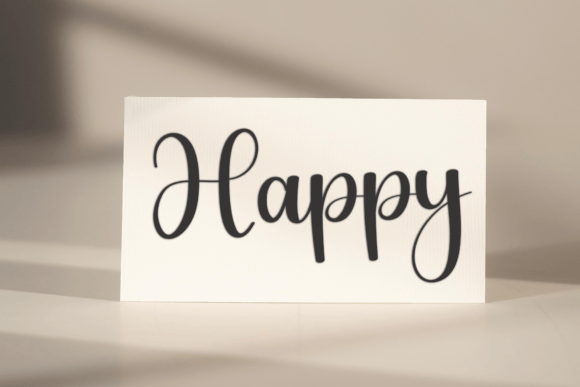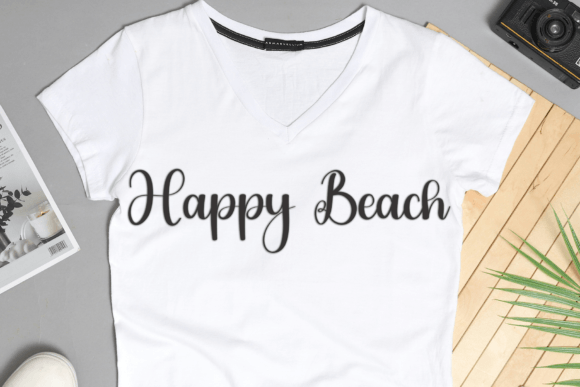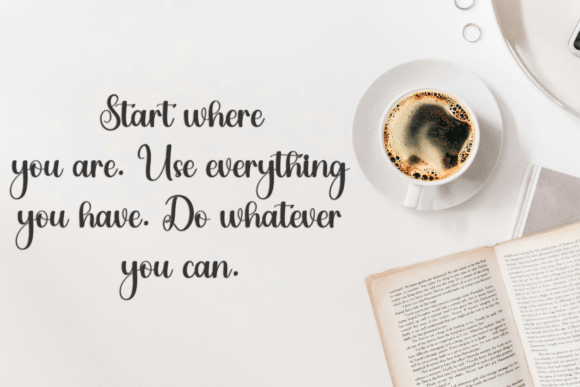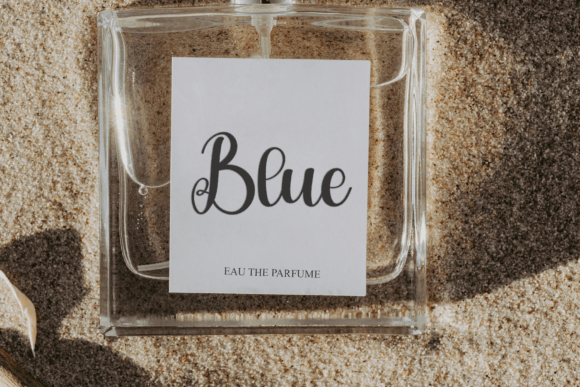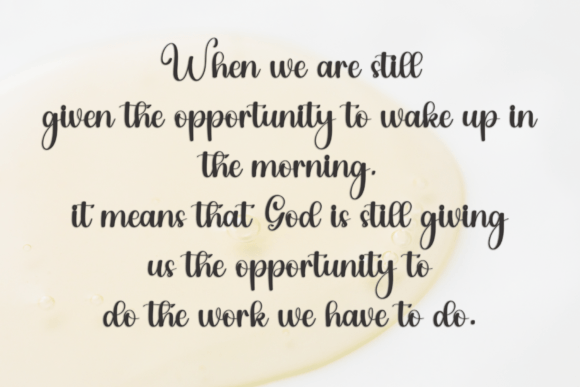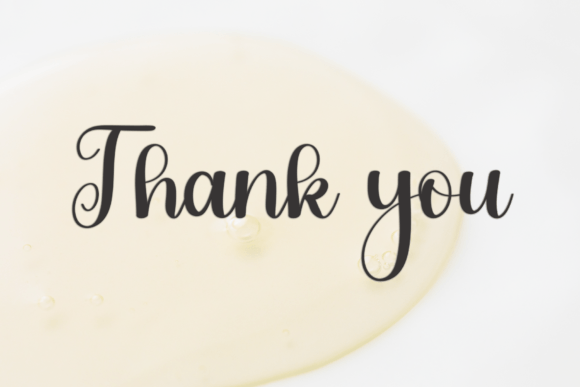
The Perfect Blend: Unlocking the Charm of the Butter Font
Remember the moment when you stumble upon a font that just clicks? It’s like finding the missing piece to your design puzzle. For me, it was the Butter Font, a charming handwritten font that instantly added a touch of warmth and personality to my projects. Its fluid strokes and organic lines evoke a laid-back vibe, making it perfect for various design endeavors.
Whether you’re working on a branding project, creating invitations, or crafting social media graphics, the Butter Font is a valuable addition to your design toolkit. Its casual elegance makes it versatile and easy to use, allowing you to add a personal touch to your designs without sacrificing professionalism.
With the Butter Font, you can elevate your designs and make a lasting impression on your audience. Its charm and character will undoubtedly make it a staple in your design arsenal.
Key Features of Butter Font
- Character Set: Multi-language support with over 2000 glyphs, including Latin, Cyrillic, Greek, and more
- Font Size: Available in 7 weights (Thin, Light, Regular, Medium, Bold, Heavy, Black) and 3 widths (Regular, Condensed, Expanded)
- Resolution: Designed for high-resolution displays (Retina, 4K, and above) with crisp and clear typography
- Unique Characteristics: Features a unique blend of modern and vintage elements, with a soft, rounded feel and subtle texture
- Font Metrics: Includes advanced font metrics, such as OpenType features and ligatures, for precise typography control
Butter Font Review
I recently had the chance to work with the Butter Font, and I have to say it’s a mixed bag. Here are my thoughts:
- Unique aesthetic: The Butter Font has a distinct, playful feel that can add a lot of personality to your design.
- Readability: Despite its unconventional appearance, the font is surprisingly easy to read, even at smaller sizes.
- Customization options: The font comes with a range of weights and styles, making it easy to find the perfect fit for your project.
- Legibility issues: While the font is generally easy to read, there are some instances where the letters can become confused or difficult to distinguish.
- Limited compatibility: I found that the font doesn’t play nicely with certain design software or operating systems.
Overall, I’d say the Butter Font is a fun and creative choice, but it’s not without its flaws. With a bit of careful planning and attention to detail, it can be a great addition to your design arsenal. However, it’s not suitable for every project or audience. Use it sparingly and with caution, and you’ll be just fine.
Tips for Getting the Most Out of the Butter Font
To get the most out of the Butter Font, use it in conjunction with other design elements to create a cohesive and visually appealing look.
Experiment with different font sizes, colors, and styles to find the perfect combination for your design.
The Butter Font is ideal for use in:
Food and beverage branding
Children’s book illustrations
Any design project where a playful and whimsical font is desired
Alternatives to Butter Font for Designers
1. Inter Font
Inter Font is a modern sans-serif font designed for digital use. It’s ideal for applications where readability and clarity are essential, such as in digital signage, mobile apps, and websites. Inter Font is similar to Butter Font in its clean and minimalist aesthetic, but it has a more geometric feel and a wider range of weights.
Lato Font is a sans-serif font with a friendly and approachable feel. It’s suitable for applications where a humanistic touch is desired, such as in branding, advertising, and editorial design. Lato Font has a similar warmth and elegance to Butter Font, but it’s more versatile and can be used in a wider range of contexts.
Montseratt Font is a sans-serif font inspired by the urban environment of Buenos Aires. It’s ideal for applications where a strong, industrial feel is desired, such as in tech, finance, and transportation design. Montserrat Font has a similar urban, gritty feel to Butter Font, but it’s more aggressive and attention-grabbing.
Q: What is the recommended font size and line height for the Butter Font?
The recommended font size for the Butter Font is between 12pt and 18pt. For optimal readability, we recommend a line height of 1.2 to 1.5 times the font size. This will ensure your text is clear and easy to read, even at smaller font sizes.